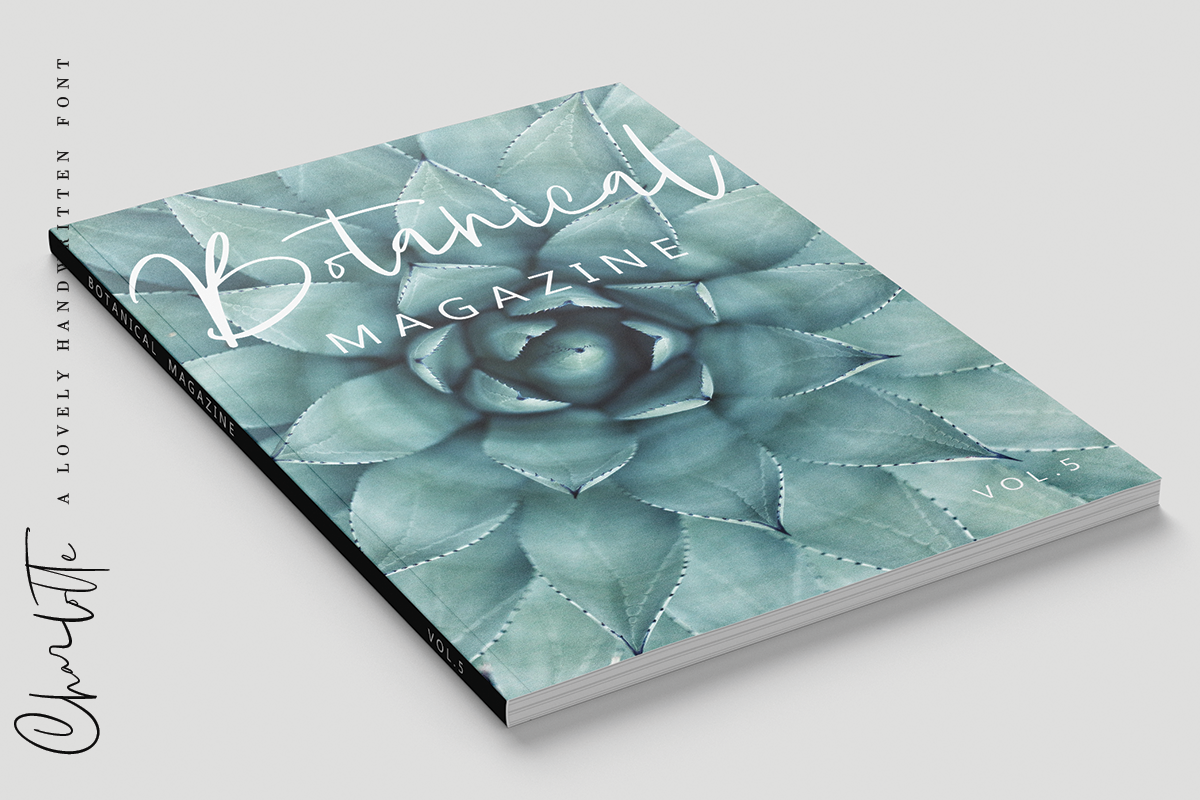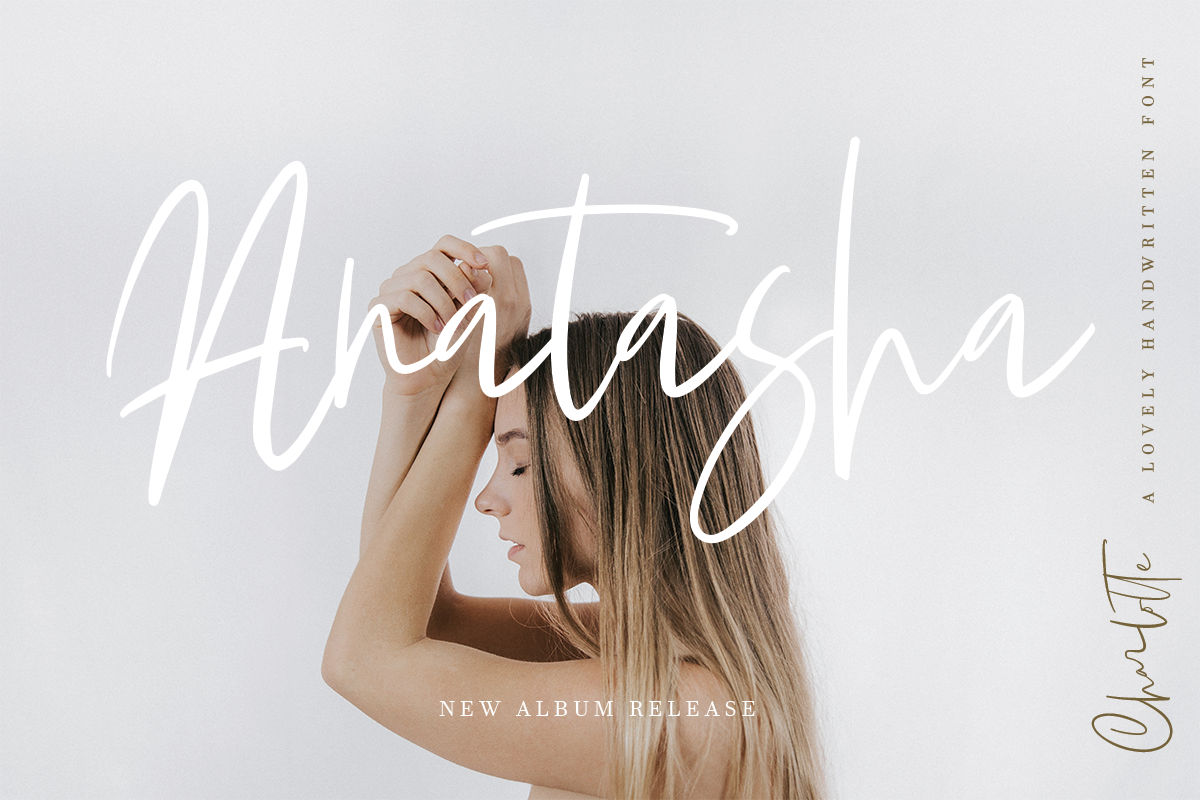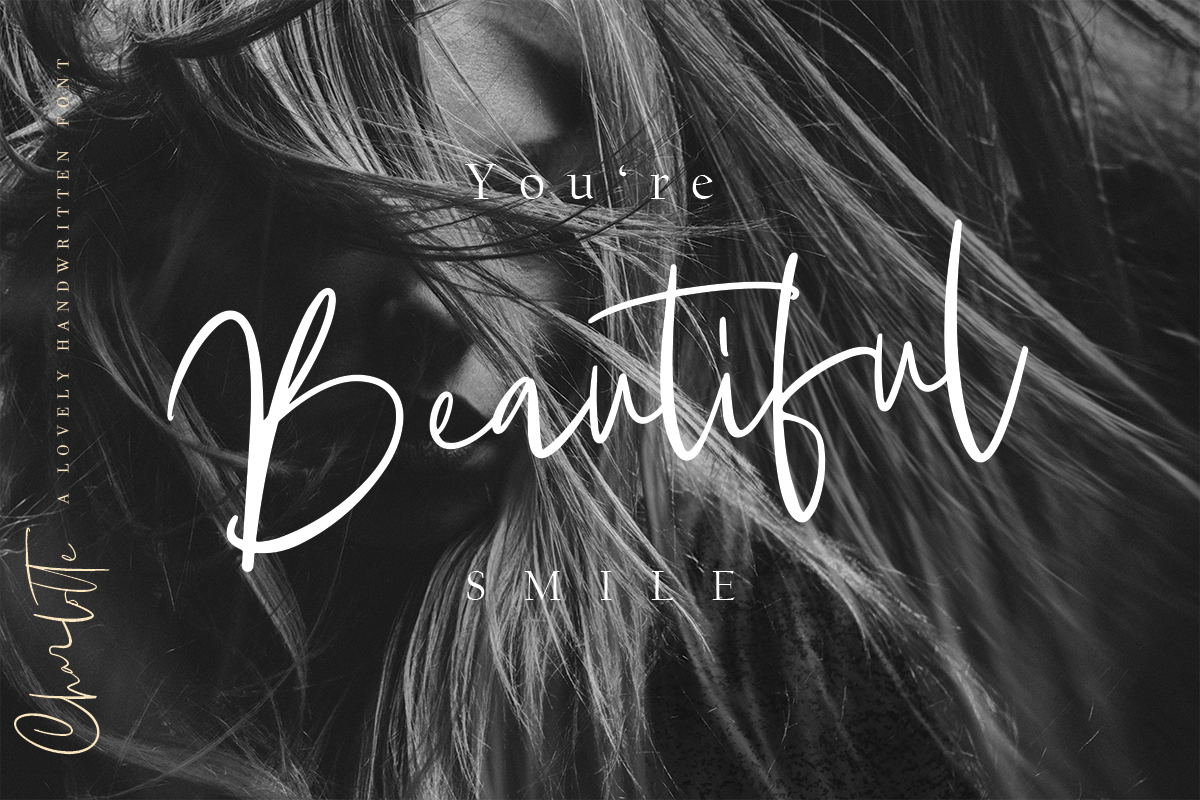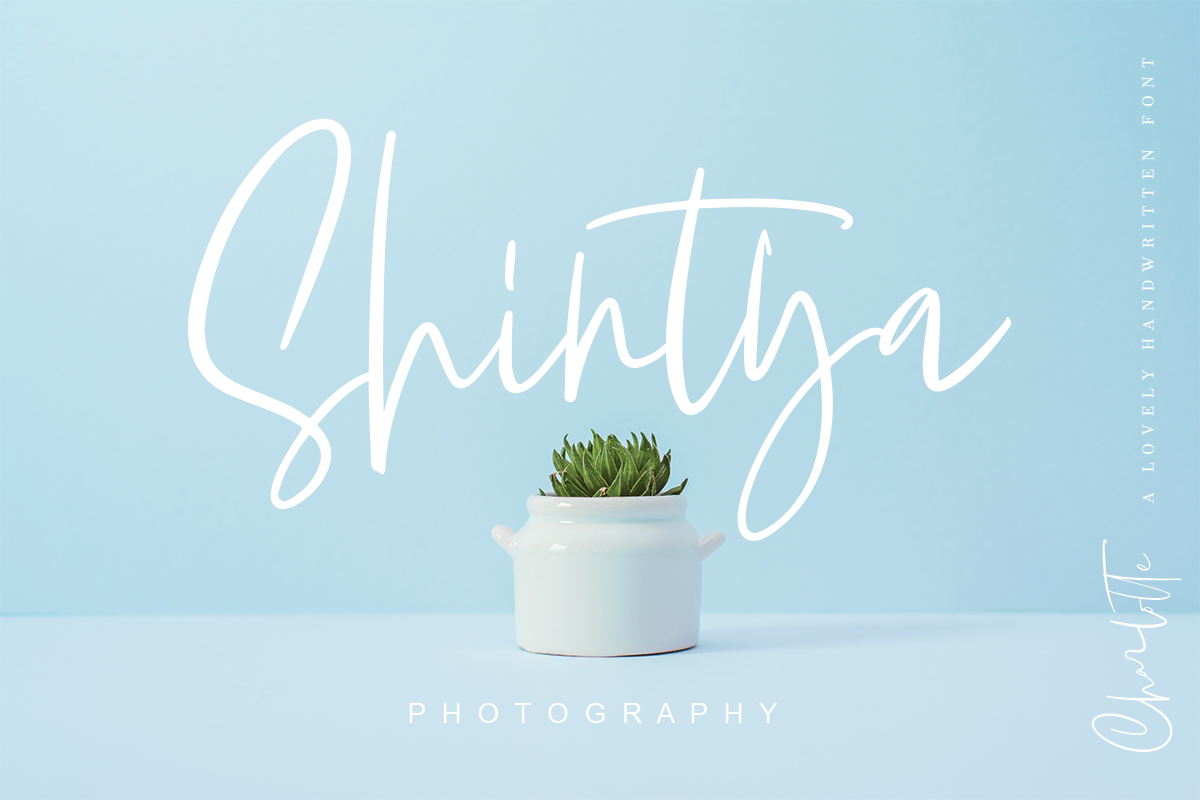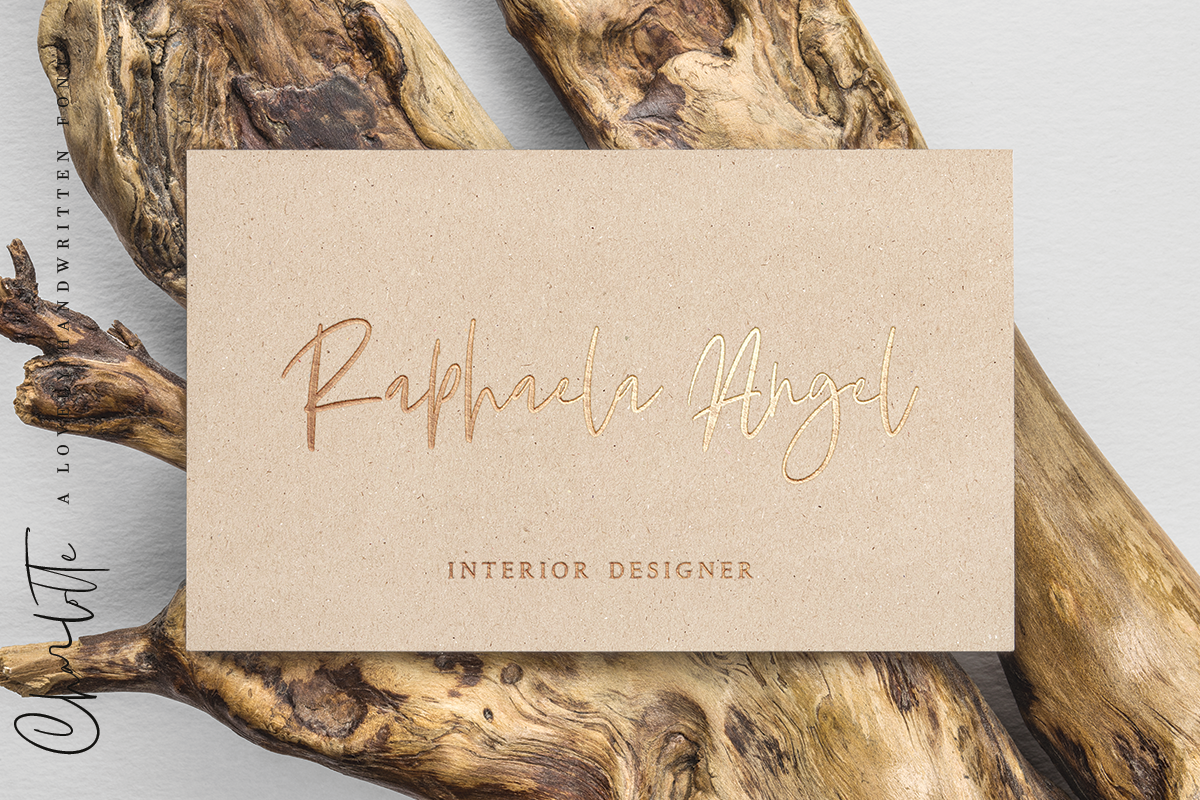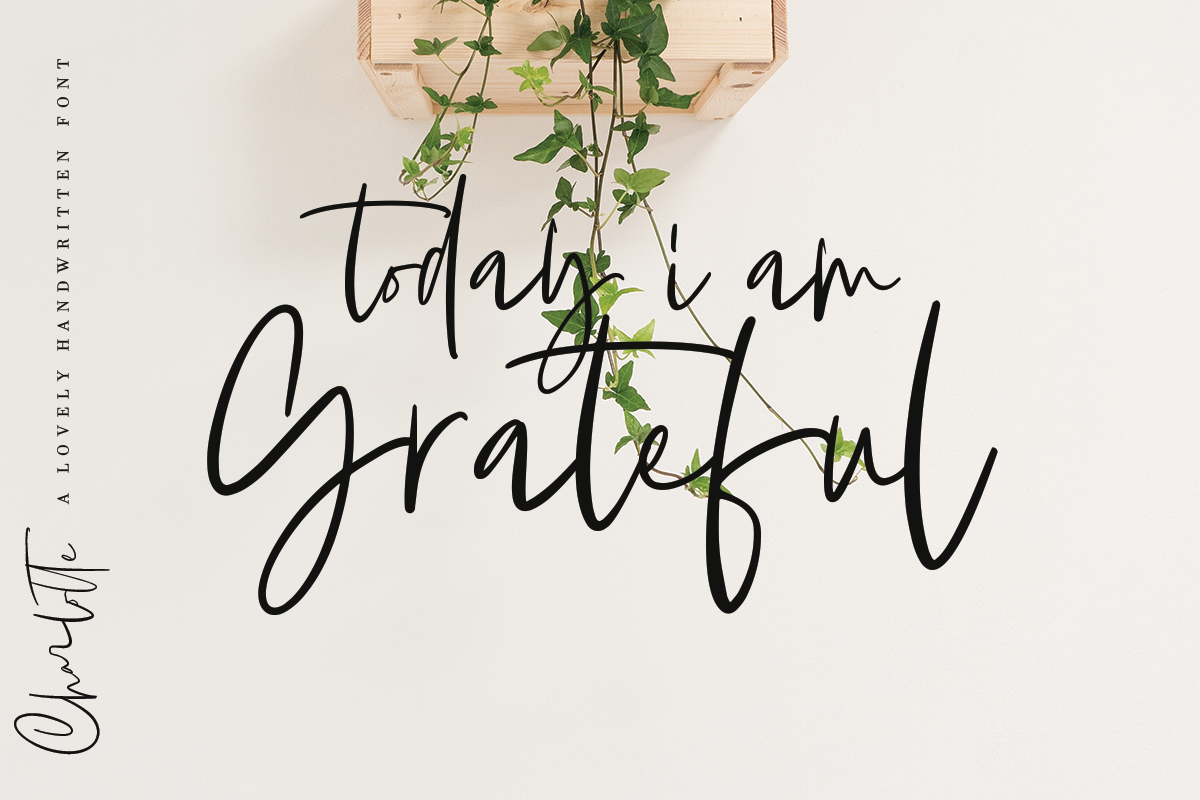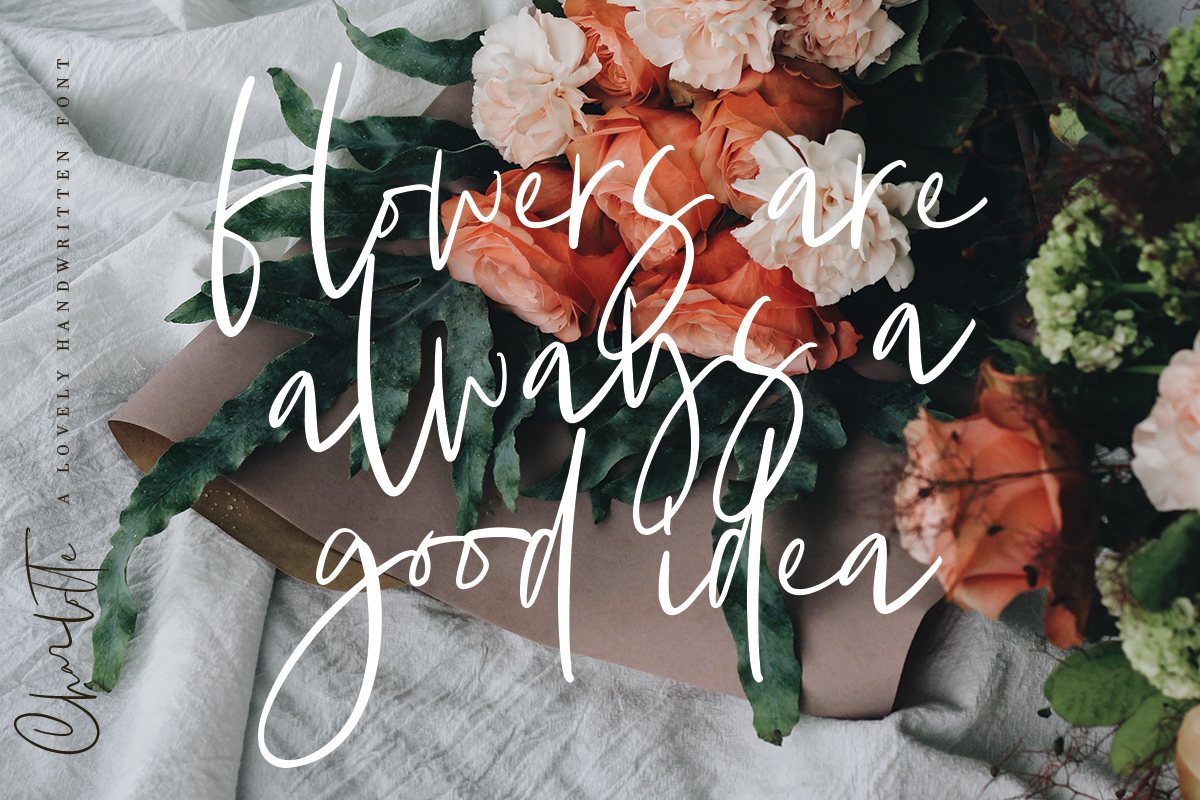
Charlotte | Handwritten Font
INTRODUCE .... Charlotte Handwritten Font
Charlotte Handwritten Font is a feminine type of Hanwritten. You can use it as a type of logo, badge, packaging, title, poster, t-shirt / clothes, greeting cards, wedding invitations and more. The flowing character is ideal for creating interesting messages, plus an ideal ligature for adjusting your project.
Charlotte multilingual support:
áäåãéèëìïîòöôøùüAÀÁÂÃÄÅEÈÉÊËIÌÍÎÏNÑOÒÓÔÕÖUÙÜÚÛYÝŸ? Ÿ
Charlotte font ligature:
aa ar as at ee er ff gg it ll on oo tl tt ur